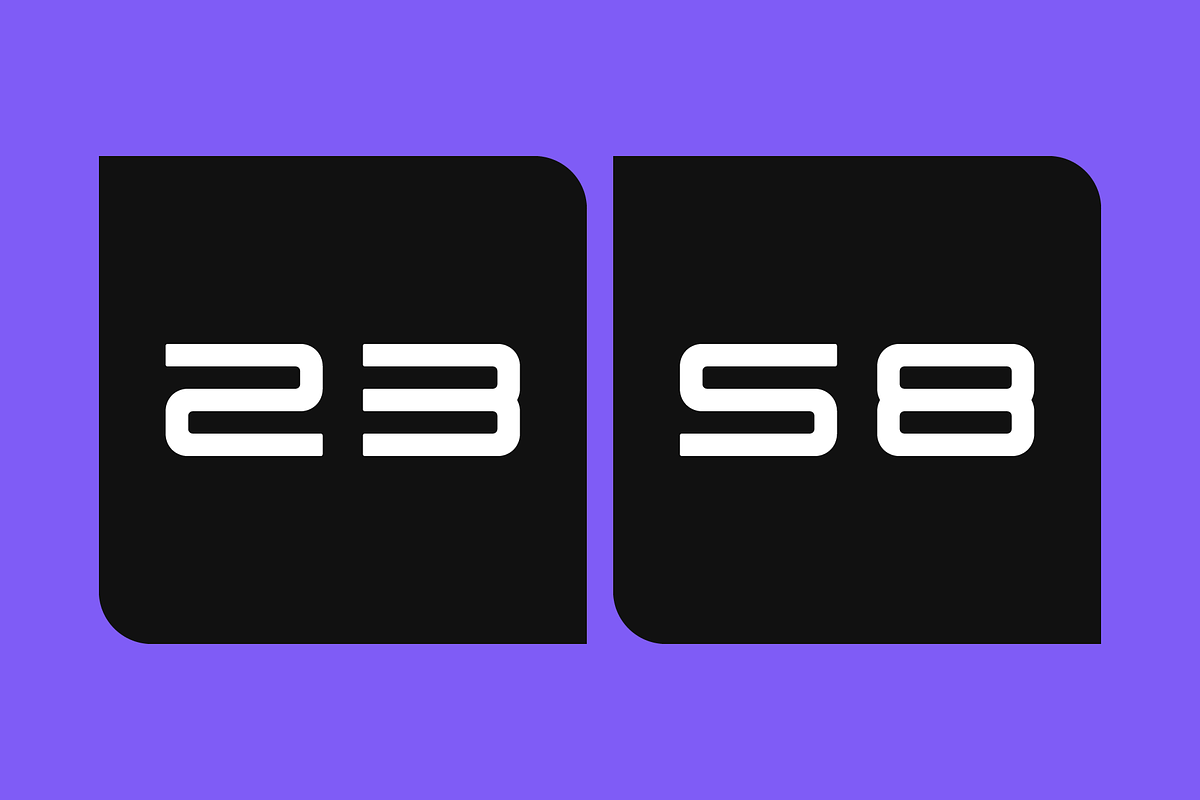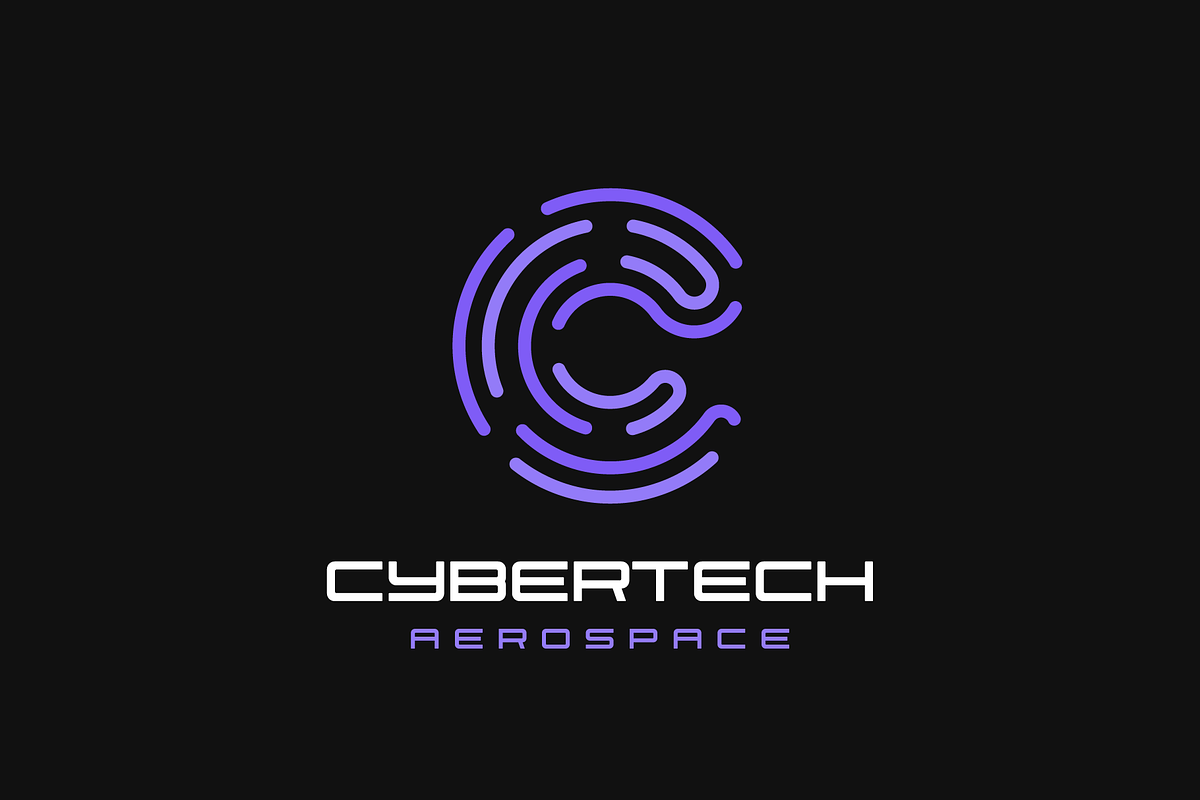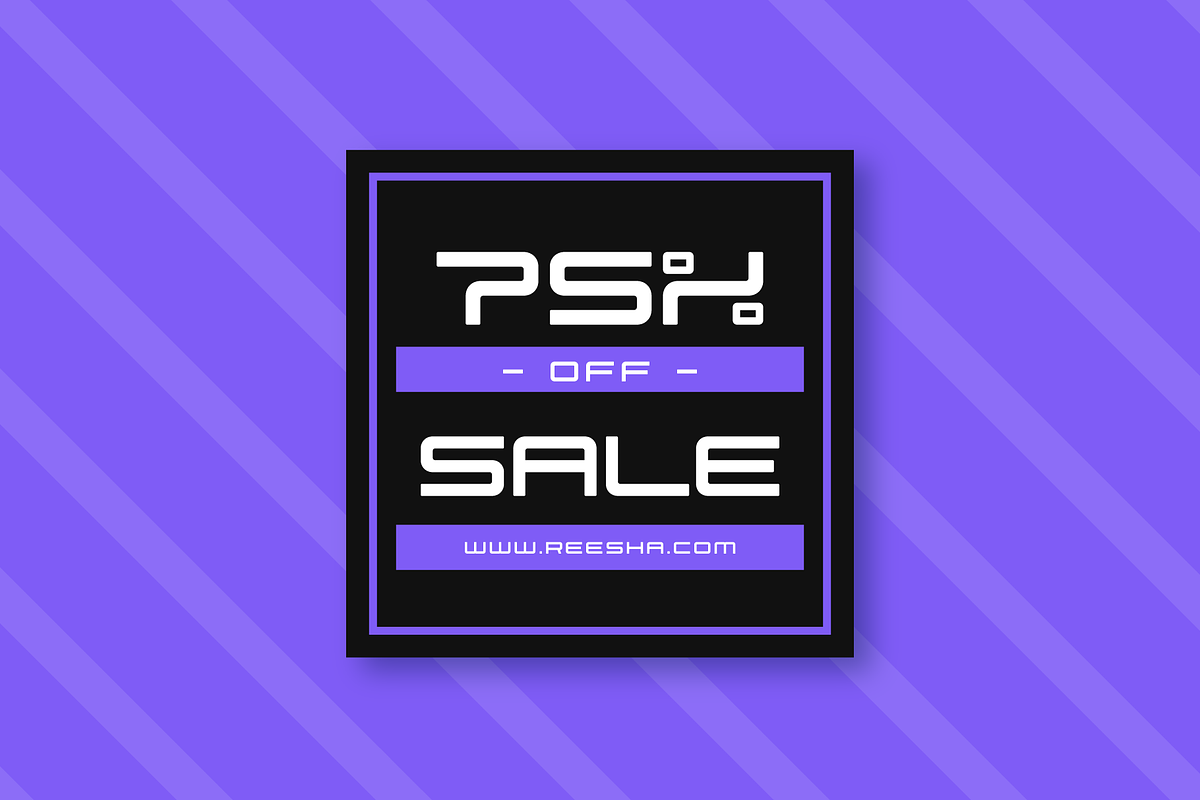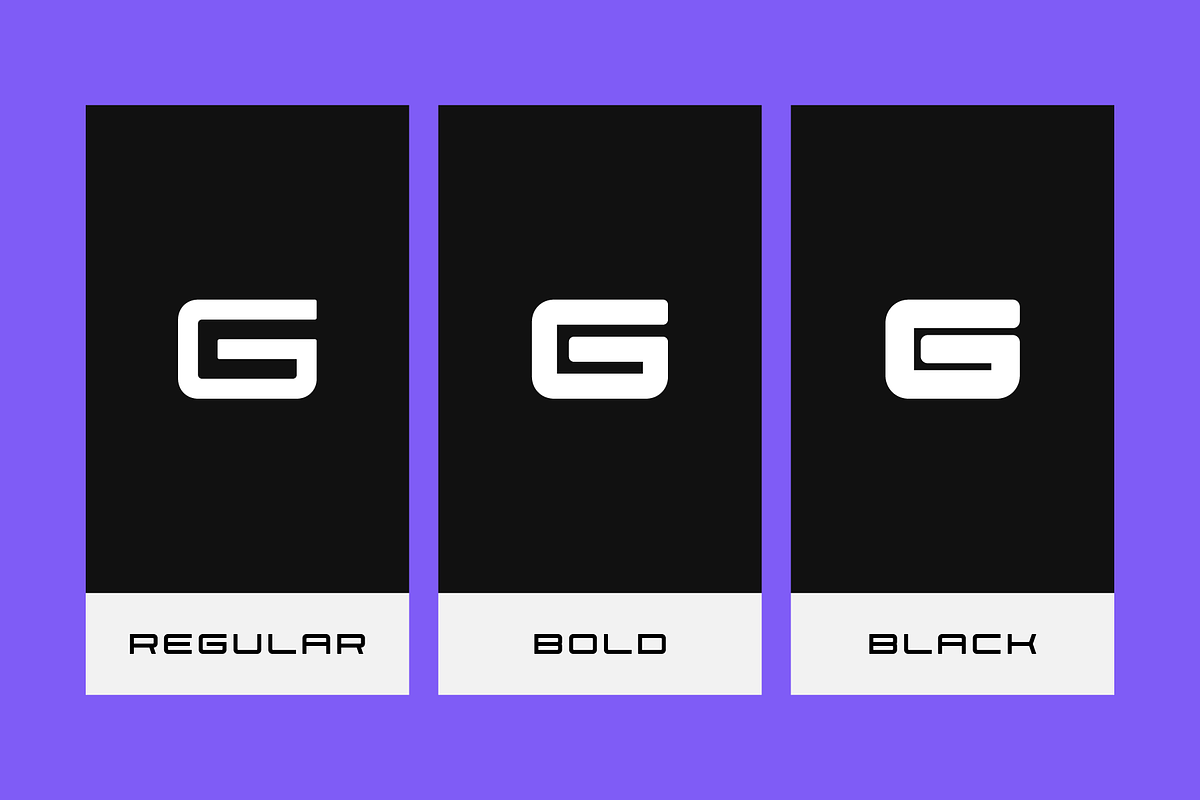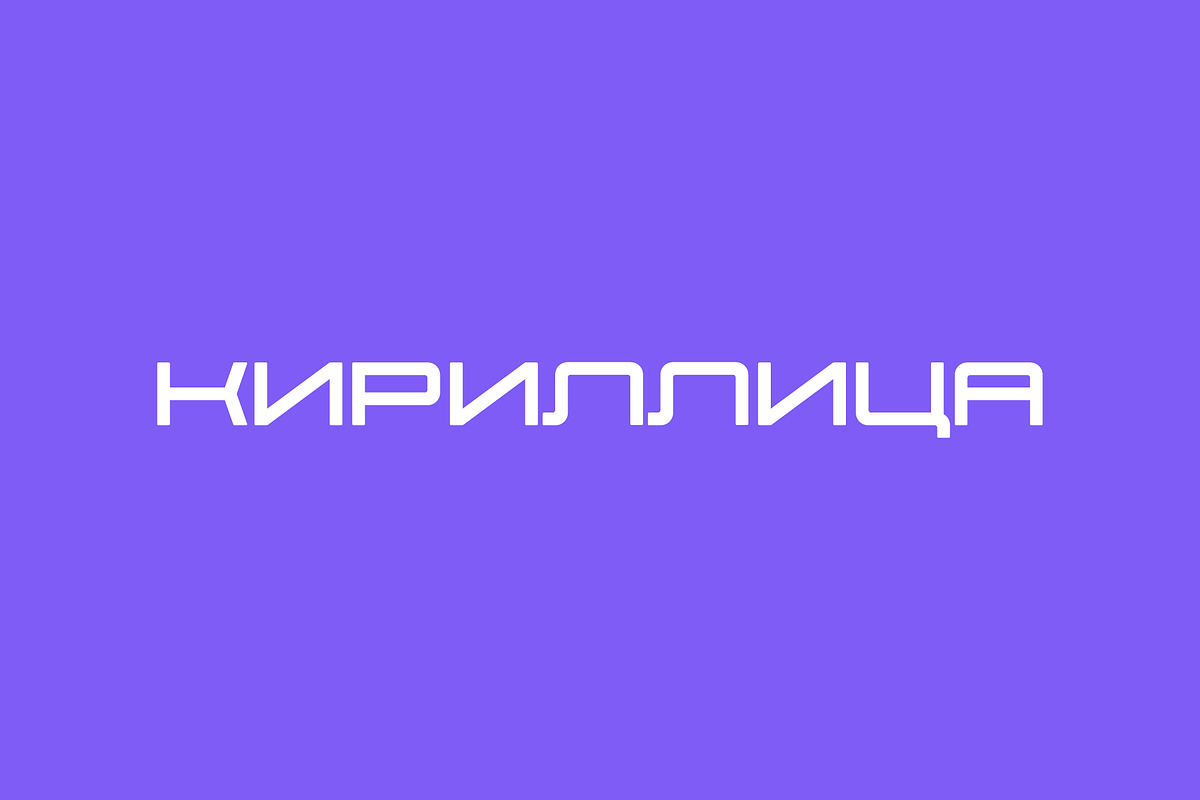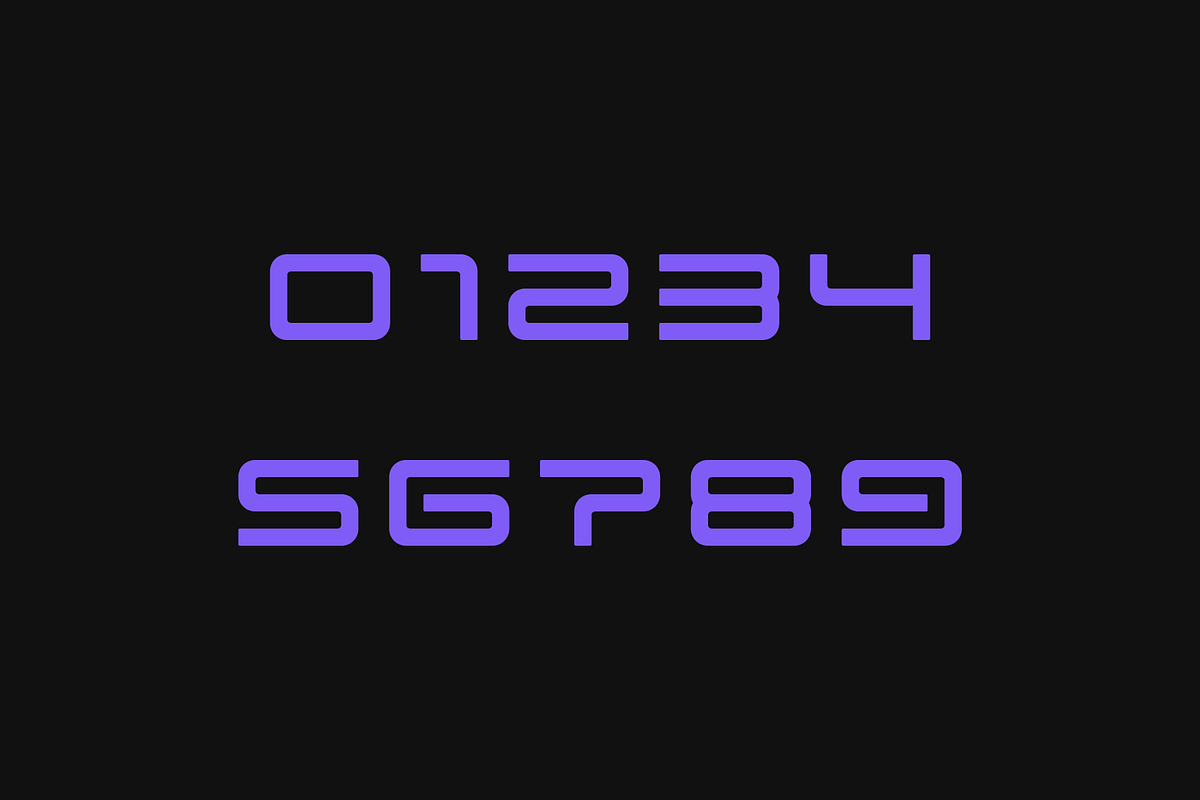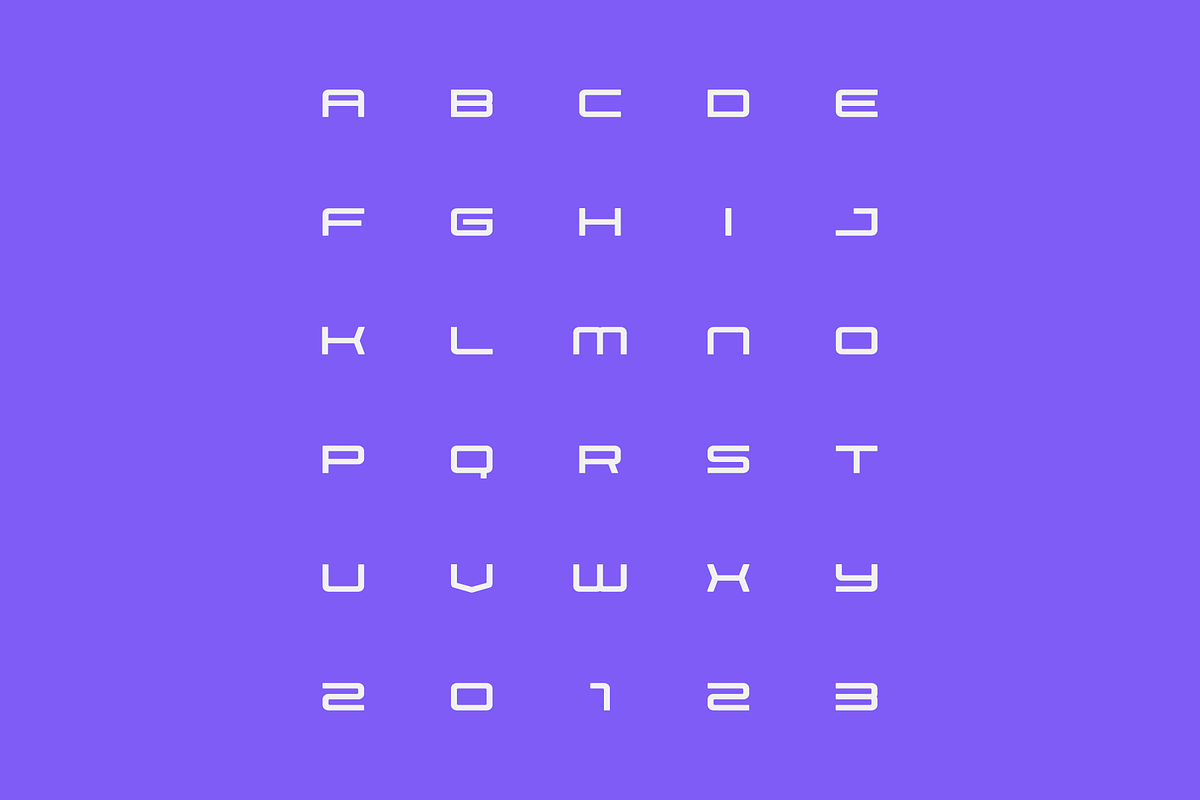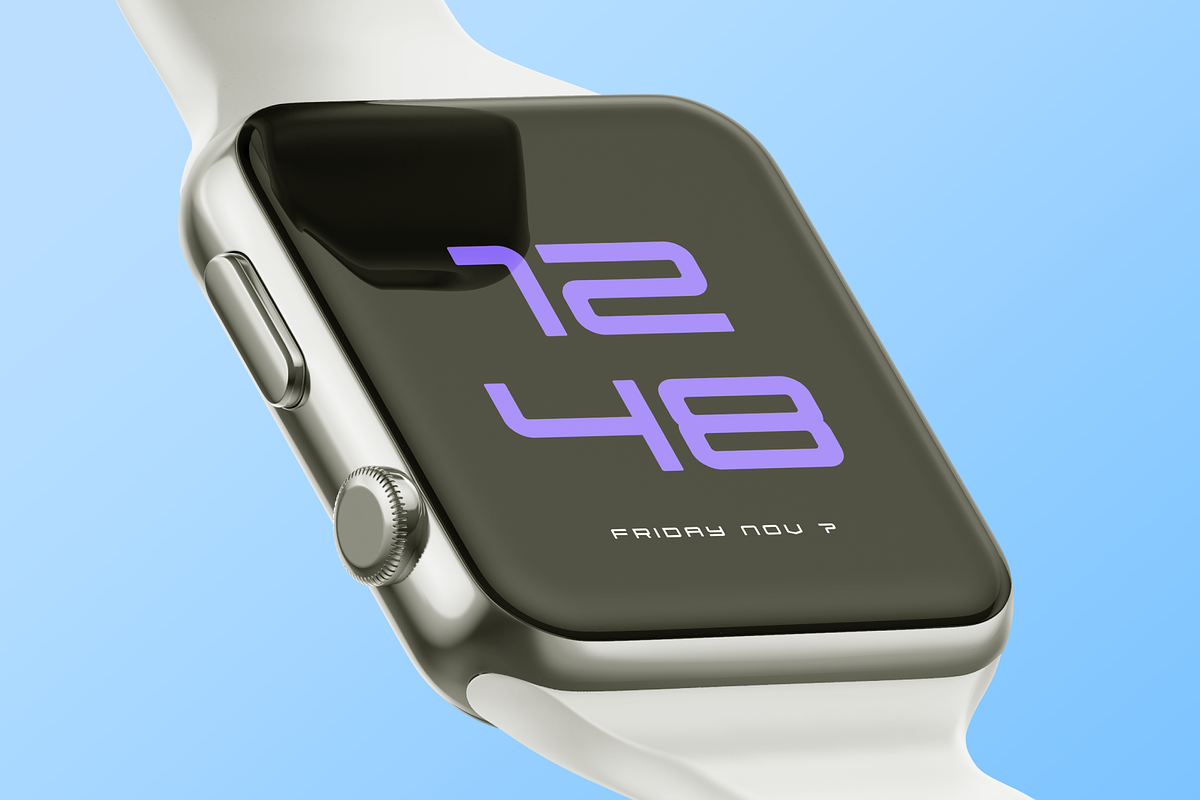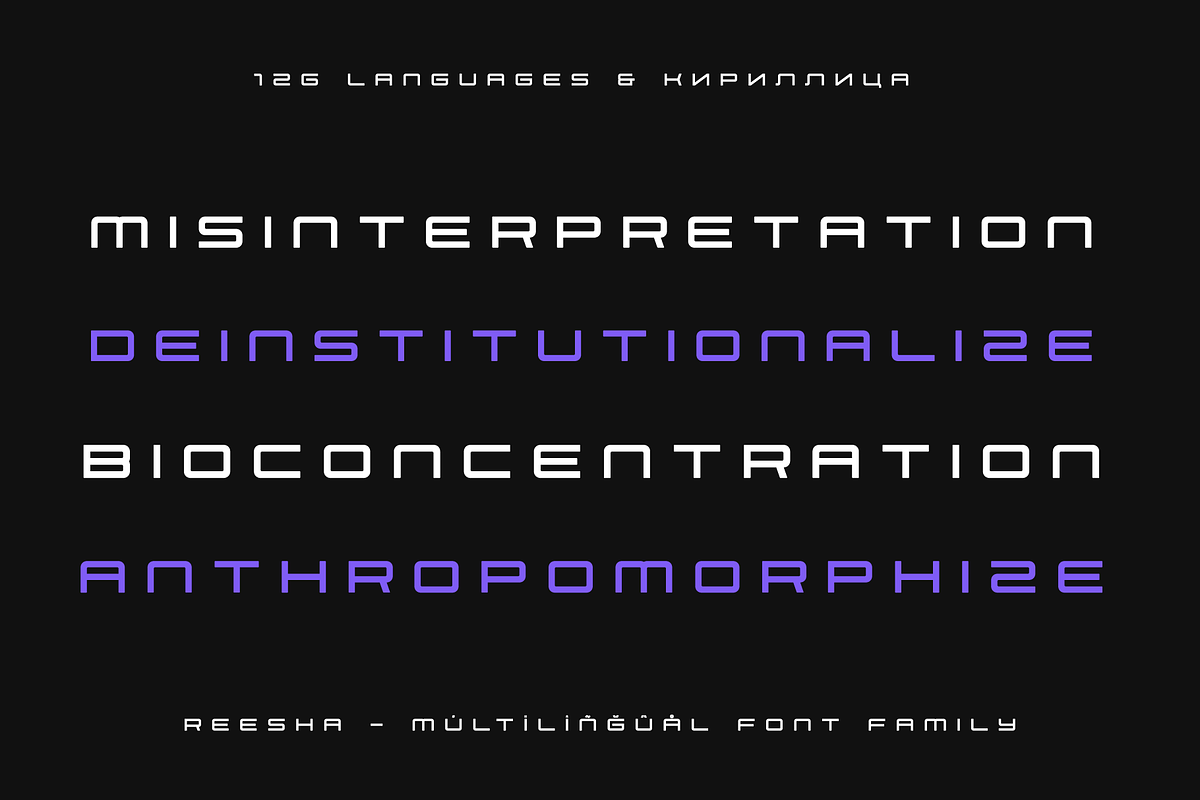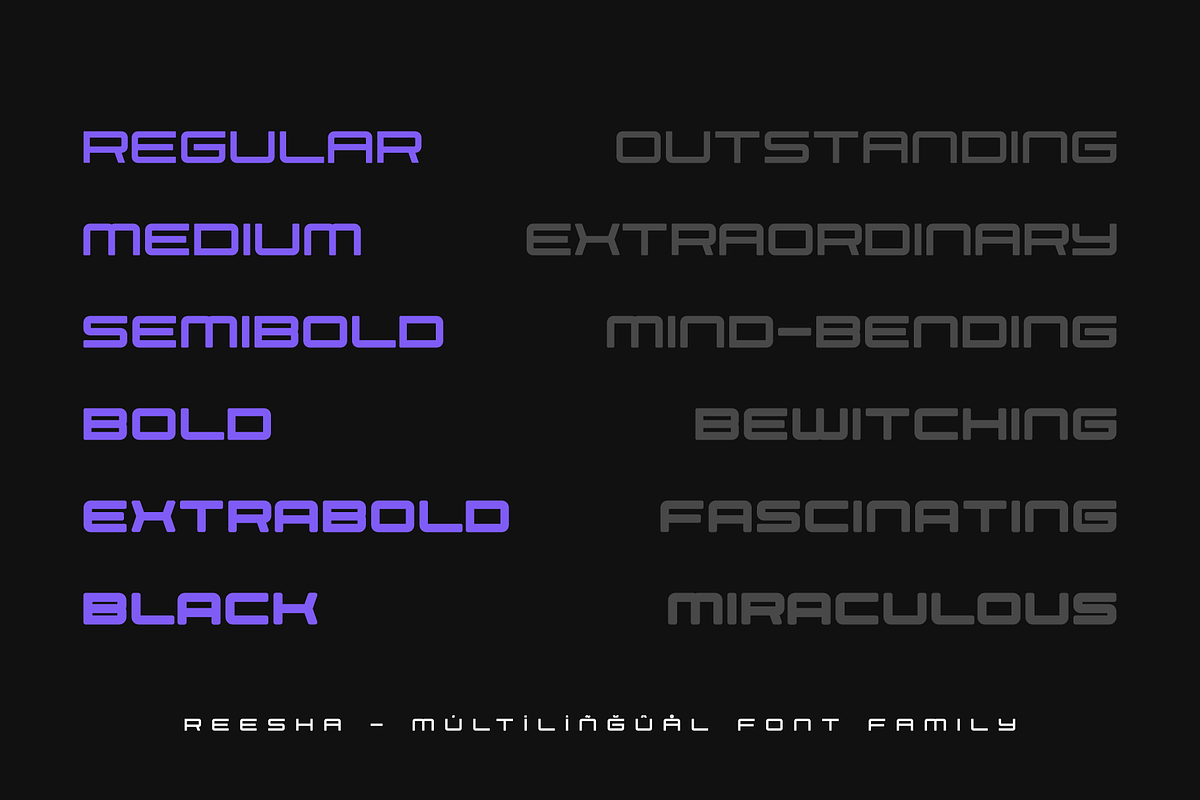
Reesha - Futuristic Font Family
Step into the future of design with Reesha, a bold, visionary typeface shaped by geometric clarity and modern minimalism. Every curve, line, and proportion is engineered for sleek, forward-thinking aesthetics — ideal for sci-fi branding, digital interfaces, packaging, and any creative project that needs a cutting-edge visual voice. From space-age logos to next-gen UI design, Reesha delivers clarity, precision, and unmistakable style.
- Futuristic & Geometric: A perfect balance of innovation and readability.
- Extended Latin & Cyrillic: Communicate your vision globally.
- Creative Flexibility: Ideal for logos, posters, UI/UX, tech branding, and beyond.
- Professional Craftsmanship: Every detail fine-tuned for balance, legibility, and visual power.
- 24 Styles Total: Regular • Italic • Medium • Medium Italic • SemiBold • SemiBold Italic • Bold • Bold Italic • ExtraBold • ExtraBold Italic • Black • Black Italic — plus matching Outline versions for each weight.
- Precision-Engineered Italics: Each slanted style is meticulously generated for consistent geometric accuracy.
Reesha supports 126 languages, including full Extended Latin and Cyrillic coverage — ensuring your designs speak to audiences worldwide.